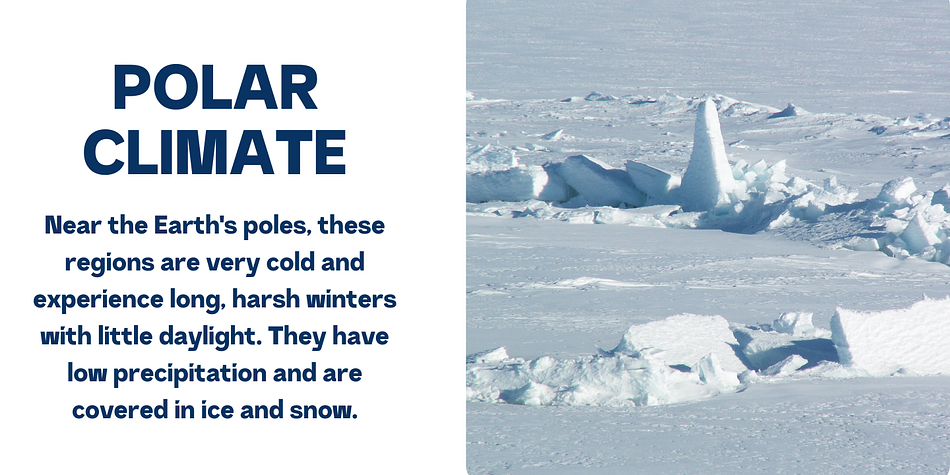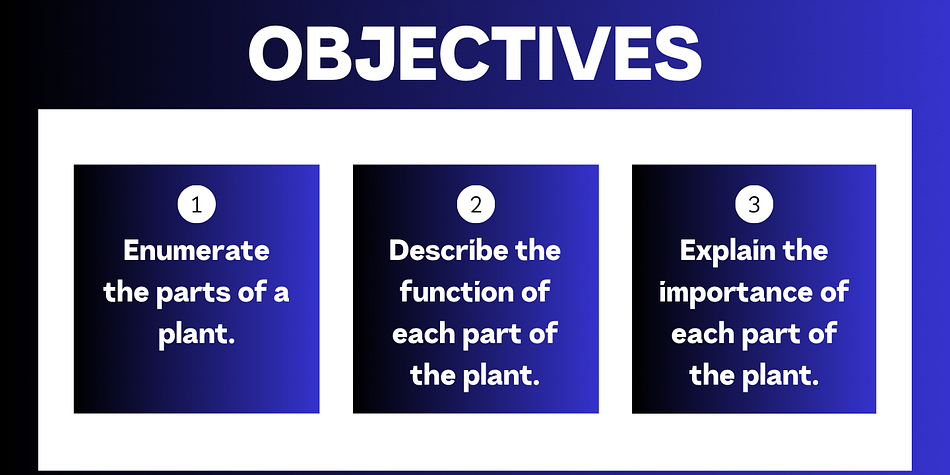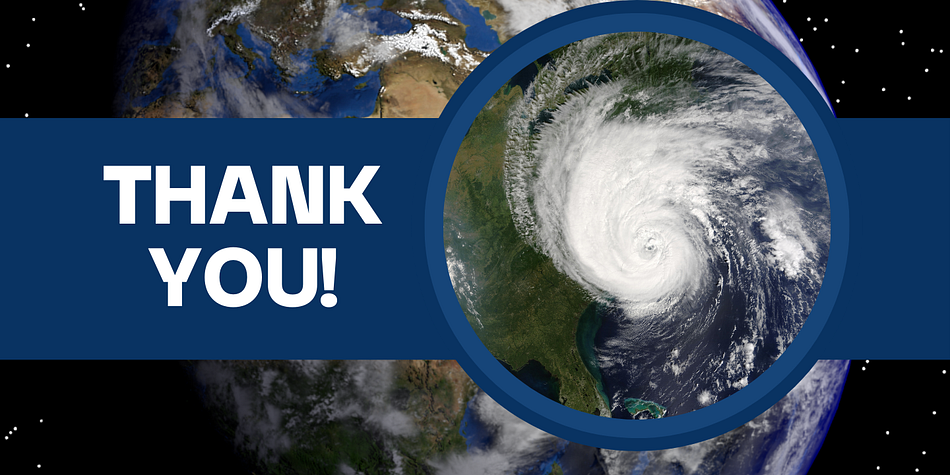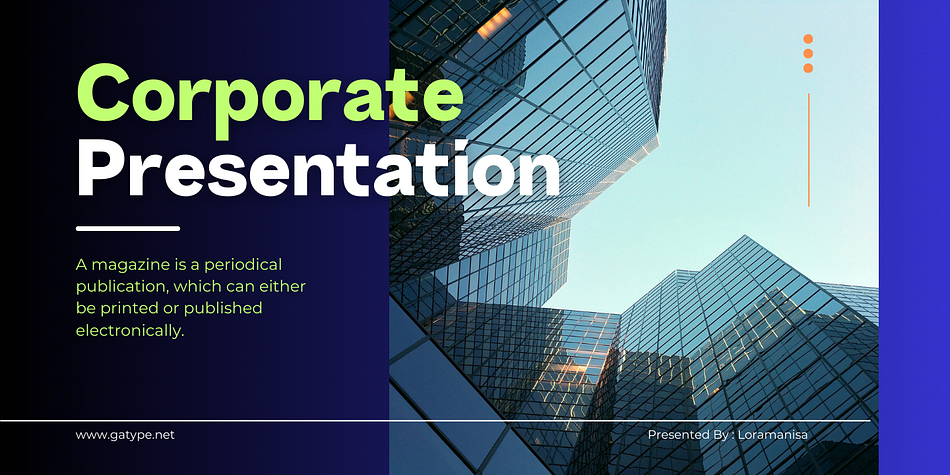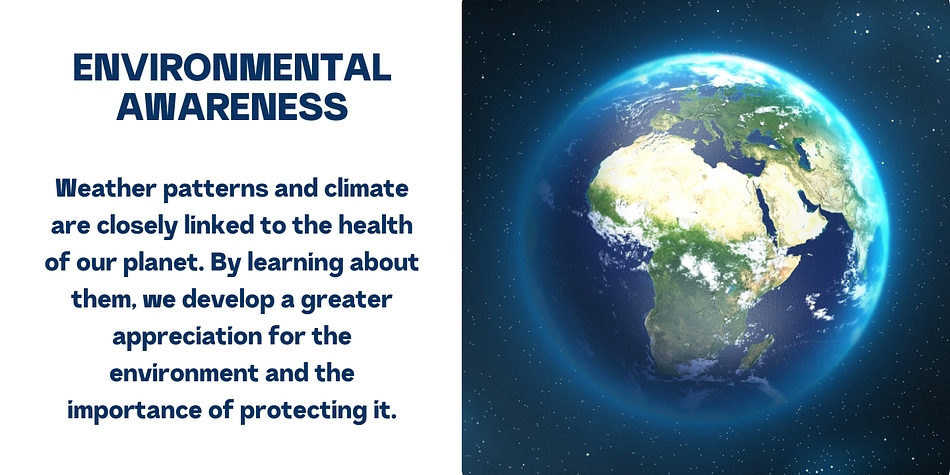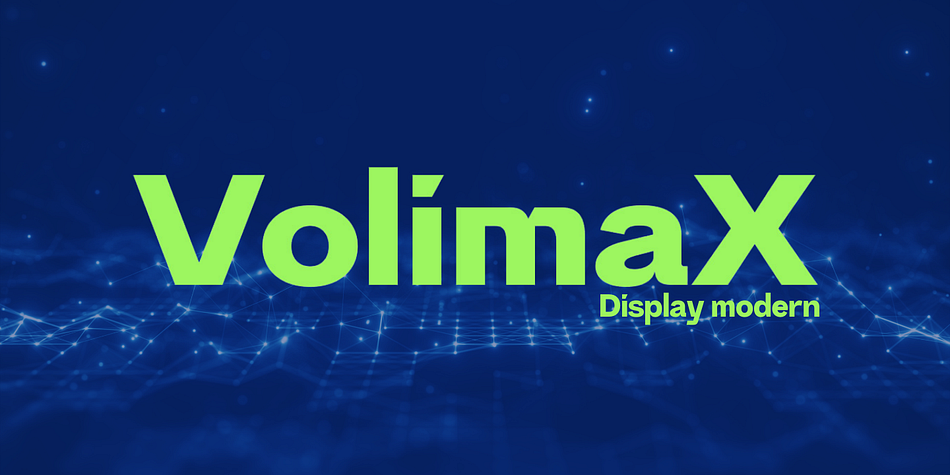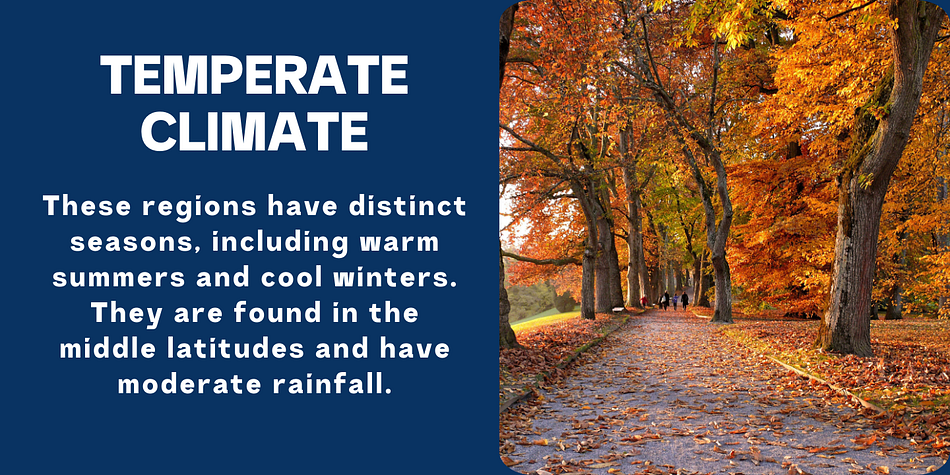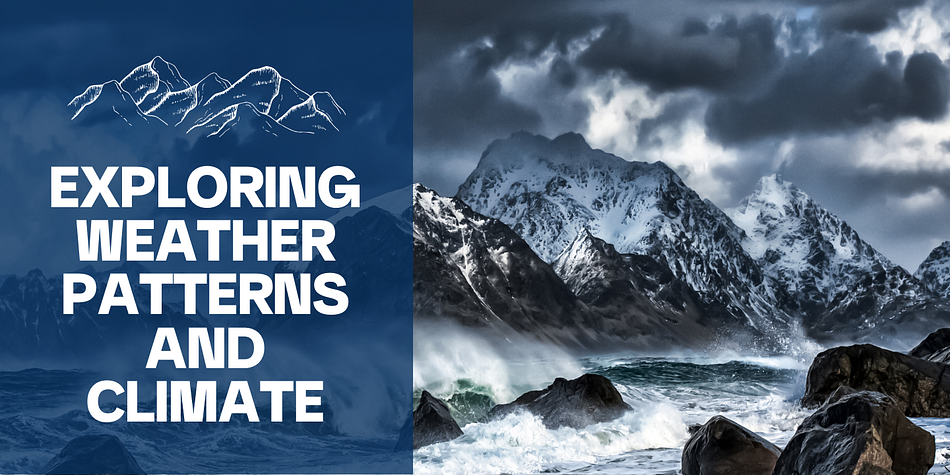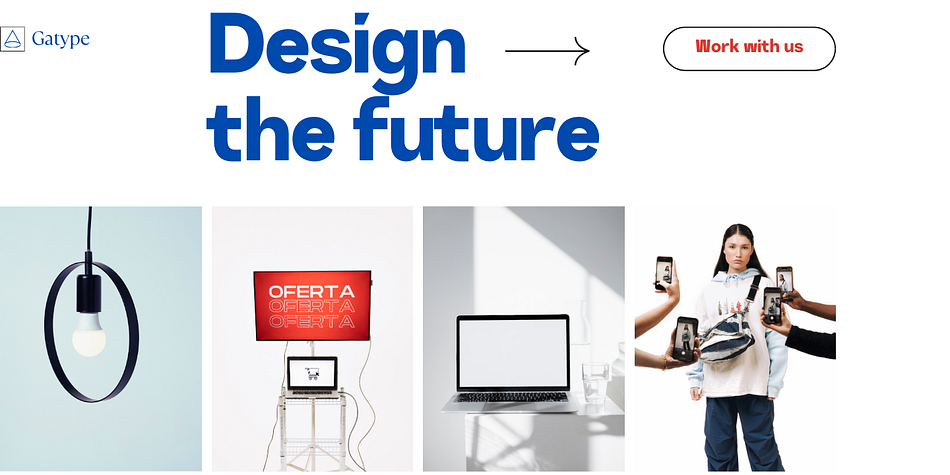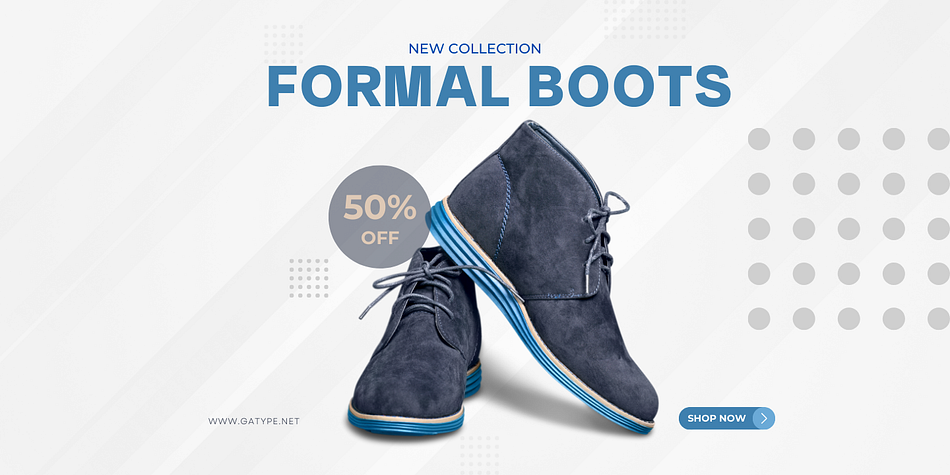
Volimax
Volimax is a sans serif font family published by Gatype.
Volimax is a slab serif font with bold, clean, large shapes. The typeface as a whole is strong in conveying order and harmony between letters. Best used as Instagram, poster, web design, magazine, logo or product.